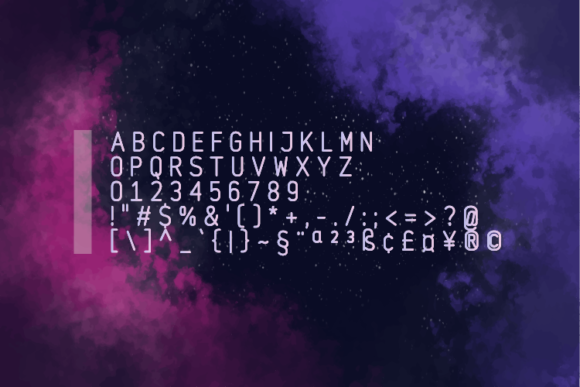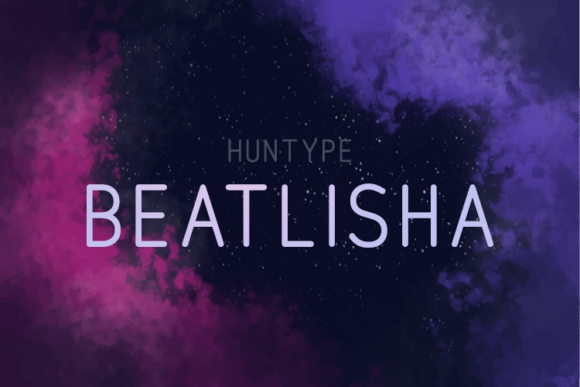
Introducing Beatlisha Font: The Ultimate Sans Serif for Modern Designs
In the world of typography, a good font can make all the difference in the success of a design project. Whether you’re a professional designer, a crafty DIY enthusiast, or a business owner looking to elevate your brand, the right font can help you convey your message with style and sophistication. That’s where Beatlisha Font comes in – a simple, casual, and clean sans serif font that’s perfect for both formal and non-formal designs.
What is Beatlisha Font?
Beatlisha Font is a modern sans serif font that’s designed to provide a clean and neat feel to your designs. Its beautiful arrangement of letters makes it an outstanding choice for a wide range of design projects, from brochures and posters to digital media and branding materials. With its simple and casual approach, Beatlisha Font is perfect for designers and crafters who want to add a touch of elegance and sophistication to their work.
Key Features of Beatlisha Font
So, what makes Beatlisha Font so special? Here are some of its key features:
- Clean and Simple Design: Beatlisha Font boasts a clean and simple design that’s perfect for creating modern and sleek designs.
- Sans Serif: As a sans serif font, Beatlisha Font is ideal for designs that require a clean and minimalist approach.
- Neat and Beautiful Arrangement of Letters: The font’s beautiful arrangement of letters makes it perfect for both formal and non-formal designs.
- Highly Versatile: Beatlisha Font is highly versatile and can be used for a wide range of design projects, from print materials to digital media.
Why Choose Beatlisha Font?
With so many fonts available, why should you choose Beatlisha Font for your design projects? Here are some compelling reasons:
- Elegance and Sophistication: Beatlisha Font adds a touch of elegance and sophistication to your designs, making it perfect for high-end brands and luxury products.
- Easy to Read: The font’s clean and simple design makes it easy to read, even at small sizes.
- Flexibility: Beatlisha Font is highly flexible and can be used for a wide range of design projects, from formal to non-formal designs.
- Unique and Creative: With its beautiful arrangement of letters, Beatlisha Font is sure to make your designs stand out from the crowd.
How to Use Beatlisha Font in Your Designs
Using Beatlisha Font in your designs is easy and straightforward. Here are some tips to get you started:
- Pair it with Other Fonts: Beatlisha Font pairs well with other fonts, making it easy to create unique and creative typography combinations.
- Experiment with Different Sizes: The font’s clean and simple design makes it easy to use at different sizes, from large headings to small body text.
- Add it to Your Brand Identity: Beatlisha Font is perfect for adding a touch of elegance and sophistication to your brand identity, from logos to marketing materials.
In conclusion, Beatlisha Font is a simple, casual, and clean sans serif font that’s perfect for modern designs. Its beautiful arrangement of letters makes it an outstanding choice for both formal and non-formal designs. With its elegance, sophistication, and flexibility, Beatlisha Font is sure to become a go-to font for designers and crafters around the world. So why wait? Download Beatlisha Font today and take your designs to the next level!